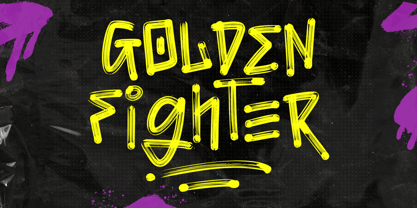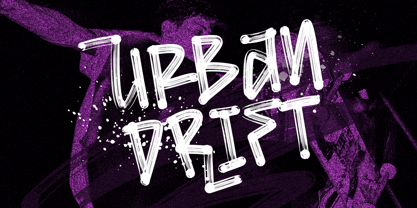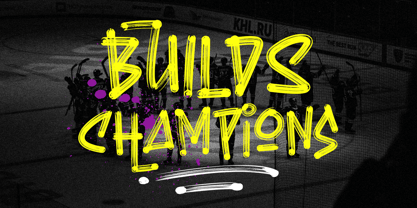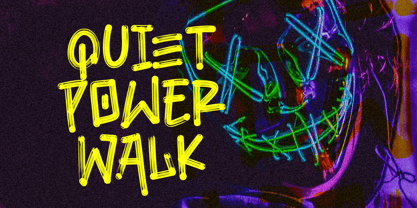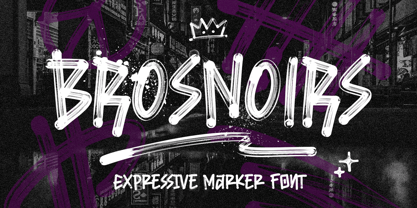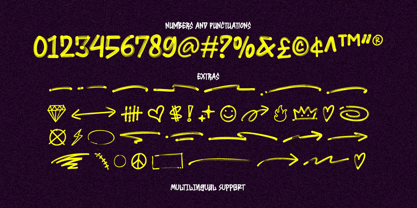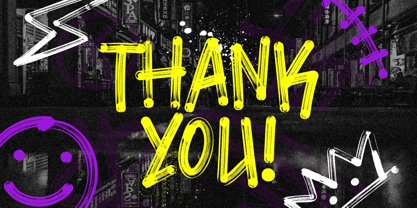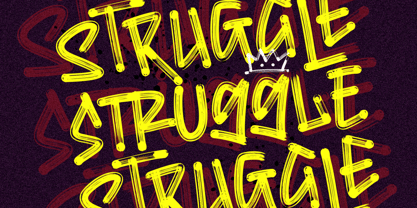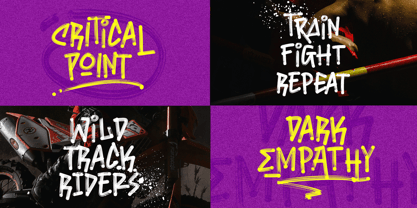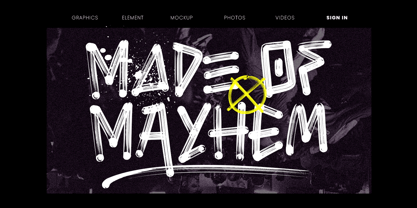
Brosnoirs
The Brosnoirs Font Family was designed by Ahmad Ramzi Fahruddin and published by Arterfak Project. Brosnoirs contains 2 styles and family package options. More about this family
Brosnoirs is a bold, textured marker font inspired by raw graffiti strokes and urban street culture. Every character feels hand-drawn with rough pressure and imperfect edges, giving your designs an authentic, expressive marker look that feels alive and unapologetic. The font includes extra alternates and playful dingbats, allowing you to create dynamic, custom-looking typography with ease. Brosnoirs works especially well for posters, apparel, album covers, branding, and social media graphics where attitude and impact matter. Gritty, loud, and full of personality — this font is made to be seen, not ignored. What you'll get: - Brosnoirs - Regular - Brosnoirs - Extras - Uppercase & Lowercase - Numbers & Symbols - Punctuation - Accented characters - Stylistic Alternates